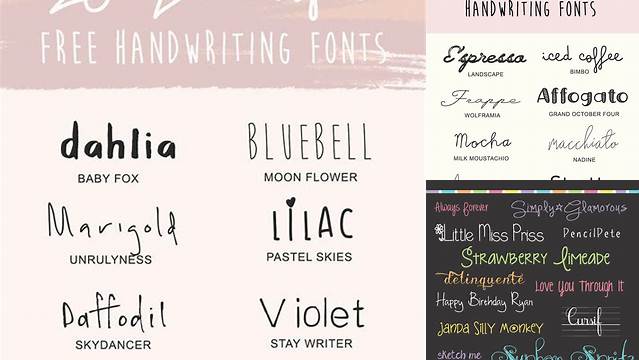
Unlocking Creativity: Free Handwriting Fonts Online
Hey guys, let's dive into the awesome world of handwriting fonts free online! Ever wanted to add a personal touch to your projects, make your website feel more human, or just play around with different styles? Well, you're in luck because the internet is brimming with fantastic, free handwriting fonts that can do all that and more. In this article, we'll explore everything you need to know about finding, downloading, and using these fonts to their full potential. We'll cover a wide range of styles, from elegant scripts to playful doodles, so there's something for everyone. Get ready to transform your designs and add a unique flair with these amazing resources. So, let's get started and unlock your creative potential with the wonderful world of handwriting fonts free online!
H2: Discovering the Best Free Handwriting Fonts
Finding the perfect handwriting fonts free online can feel like searching for a needle in a haystack, but don't worry, it doesn't have to be a daunting task! There's a plethora of websites offering a wide selection of free fonts, each with its own unique style and charm. To get started, you should understand what you want, and consider what vibe you are going for. Do you need something elegant and sophisticated? Or something fun and quirky? Once you've established what feeling you are going for, you can start your search. Some great places to start include Google Fonts, DaFont, Font Squirrel, and Behance. These websites have extensive libraries, advanced filtering options, and user-friendly interfaces that make it easy to browse and download fonts. Make sure to look at the license for each font to make sure it is free for commercial use if you need it for that. The license determines how you can use the font. This is essential to know as the last thing you want is to violate any copyright laws. When browsing, pay attention to the character sets offered and whether the font supports different languages. Fonts with a wide range of characters are generally more versatile. So, the key is to explore, experiment, and find the fonts that resonate with you and your projects. The beauty of handwriting fonts free online is that you can try as many as you like without any cost.
H3: Elegant Script Fonts for a Touch of Sophistication
For those seeking a touch of sophistication, elegant script fonts are an absolute must-have. These fonts mimic the fluidity and grace of handwritten calligraphy, perfect for invitations, logos, and any design that calls for a refined aesthetic. The best part? You can find many handwriting fonts free online that capture this beauty without breaking the bank. When exploring elegant script fonts, look for those with a flowing, connected style, and consider the details like the thickness of the strokes and the presence of flourishes. Some scripts are more formal, while others offer a more relaxed, contemporary feel. Think about the project you are using it for. A wedding invitation might call for a traditional script with delicate serifs. Conversely, a modern blog header might benefit from a more casual, brush-style script. Test various scripts to see how they appear in different sizes and contexts. The versatility of elegant script fonts allows you to add a touch of class to various projects. Many font websites have preview tools that allow you to see your text written out with different fonts so you can see how the font may look. When choosing an elegant script font, the quality of the typeface, how readable it is, is extremely important. You want it to be legible. Even the most beautiful script font won't be useful if your audience can't read it. These fonts are a great choice for branding, and can create a memorable impression.
H3: Playful and Casual Handwriting Fonts for Personality
If you're after a more personal and friendly vibe, playful and casual handwriting fonts are your go-to choice. These fonts emulate the feel of everyday handwriting, giving your designs a warm, approachable feel. Unlike their elegant counterparts, playful fonts often feature more irregular strokes and varying letterforms, adding a touch of spontaneity and charm. You can find a ton of great handwriting fonts free online that will do the trick! When browsing these, consider fonts that match your brand. If you are looking for a whimsical look, you might choose a font with a bouncy baseline and rounded letter shapes. For a more relaxed feel, look for fonts with slightly slanted letters and a less formal structure. One advantage of these fonts is that they're extremely versatile. They are a great choice for headlines, quotes, and short blocks of text where you want to engage your audience. Test out different fonts to get the best feel for them. Test out a variety of text to get the best view of what it will look like in your project. The key is to find fonts that resonate with your message and align with the tone you want to set. They are perfect for websites, social media graphics, and presentations. With the right playful font, you can transform your designs into inviting, memorable experiences that captivate your audience. You can find some awesome handwriting fonts free online if you spend a little time searching.
H3: Installing Handwriting Fonts on Windows and macOS
Once you've downloaded your handwriting fonts free online, the next step is installing them on your operating system. The good news is, whether you're using Windows or macOS, the process is relatively straightforward. Let's break it down for each platform. For Windows: Locate the font files you downloaded (usually in .ttf or .otf format). Right-click on the font file, and a menu will pop up. From this menu, select the 'Install' option. This will automatically install the font to your system. Alternatively, you can open the font file, and a font preview window will appear. In this window, click the 'Install' button. Another way is to copy the font files into the 'Fonts' folder within your Windows directory. This will typically be located under 'C:\Windows\Fonts'. For macOS: Double-click the font file to open it. A font preview window will appear, and you'll see an 'Install Font' button at the bottom. Click this button. The font will be automatically added to your Font Book app, which manages all the fonts on your Mac. You may need to restart your design software for the new fonts to appear in the font menus. Remember to always respect the licensing terms when installing and using these fonts. With these steps, you will be able to use a variety of handwriting fonts free online in your designs.
H2: Using Handwriting Fonts in Design Software
Now that you've got some amazing handwriting fonts free online installed, it's time to put them to good use in your design software. Whether you're using Photoshop, Illustrator, Canva, or Microsoft Word, the process is generally the same. First, open your design software and create a new document or open an existing one. Next, select the text tool. You'll typically find this tool represented by a 'T' icon in your software's toolbar. Click in your document to create a text box. Now, it's time to choose your font! In the font selection drop-down menu (usually found in the top toolbar or in the properties panel), scroll through the list of available fonts. You should see your newly installed handwriting fonts in this list. If you don't, make sure that the software is restarted. Select the font of your choice and start typing. Adjust the font size, color, and other settings to achieve the desired look. Experiment with different styles, weights, and sizes of the font. You can also use the font in graphics or backgrounds. The options are endless! The most important thing is to experiment and see what you can do. By exploring different design techniques, you can create designs with handwriting fonts free online.
H3: Handwriting Fonts in Adobe Photoshop and Illustrator
H2: Where to Find Inspiration and Examples
Looking for inspiration for your projects using handwriting fonts free online? There are tons of resources out there to spark your creativity. A great place to start is design blogs and websites like Behance, Dribbble, and Awwwards. These platforms showcase a wide array of design projects, allowing you to see how others are using handwriting fonts in innovative ways. You can browse through different designs to get inspiration. Search for projects that utilize handwriting fonts to see what styles and techniques resonate with you. Another fantastic resource is Pinterest. Simply search for terms like